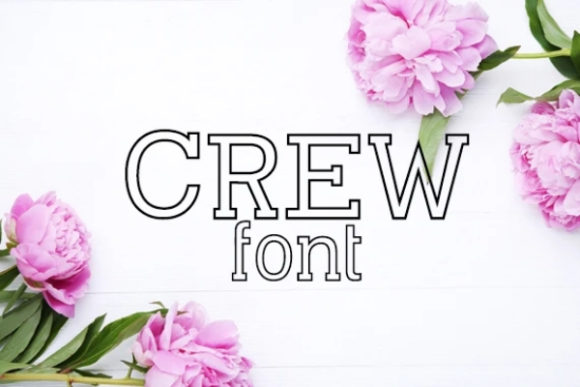
Buckle up for an adventure with our Crew Font! This charismatic display font is your ticket to unlocking a world of design possibilities. Its playful, conceptual style adds a touch of whimsy to any project, whether it's a heartfelt invitation, a captivating logo, or a social media post that pops.
Crew's versatility knows no bounds. Its unique character dances seamlessly across formal and informal settings, making it the perfect choice for designers seeking a font that's both stylish and approachable. Imagine your website headers brimming with personality, your posters bursting with charm, and your social media posts turning heads with every scroll.
The Crew Font is more than just a collection of letters; it's a gateway to express your creativity. With its captivating curves and charming imperfections, this font invites you to embark on a typographic journey that will leave a lasting impression. So, whether you're a seasoned designer or just starting to explore the world of fonts, let Crew be your trusty companion on this exciting adventure!